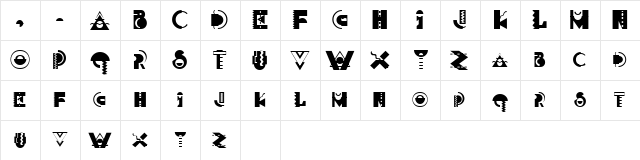
MemphisDisplay Regular Font Preview
MemphisDisplay Regular
Design Context for MemphisDisplay Typeface
MemphisDisplay is built around its visual character rather than neutral utility — its distinctive forms are designed to make an impression at display sizes.
Font Pairing: Pair with a clean neutral sans-serif for body copy to let MemphisDisplay's character lead without overwhelming the composition.
Pro Tip: Treat MemphisDisplay as the centrepiece of your typographic hierarchy. One strong heading set in a decorative face can carry an entire layout.